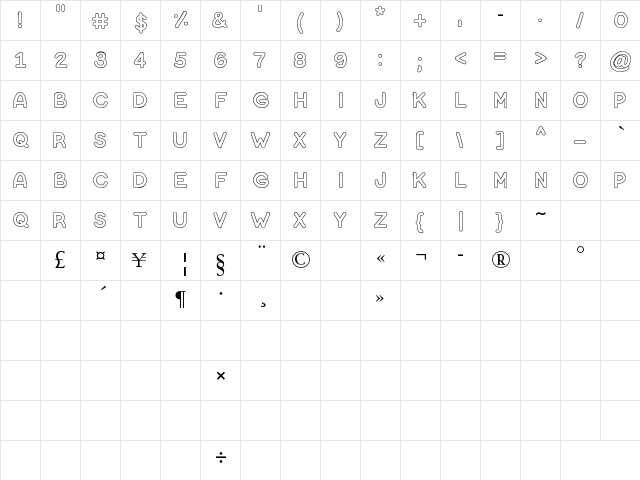
Bubble Letters Regular
Design Context for Bubble Letters Typeface
Bubble Letters trades formality for fun, with bouncy, characterful letterforms that bring warmth and energy to any project.
Font Pairing: Pairs well with a rounded or humanist sans for body copy, maintaining the friendly tone without relying on Bubble Letters to carry extended reading.
Pro Tip: Use Bubble Letters at larger display sizes where its expressive character can land. Pair with a clean, simple sans for body copy to maintain readability.